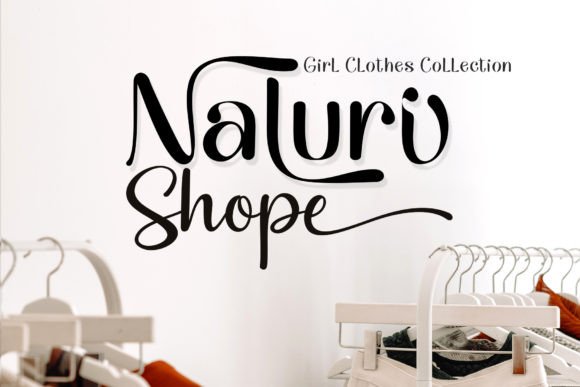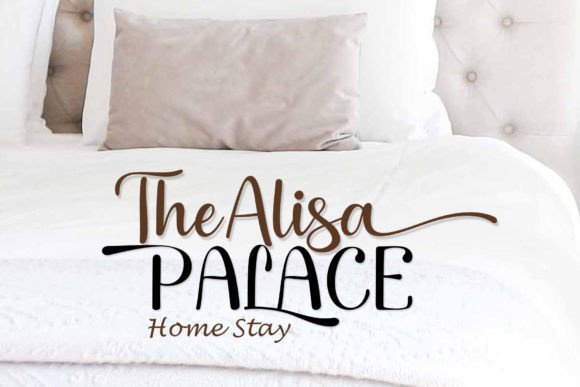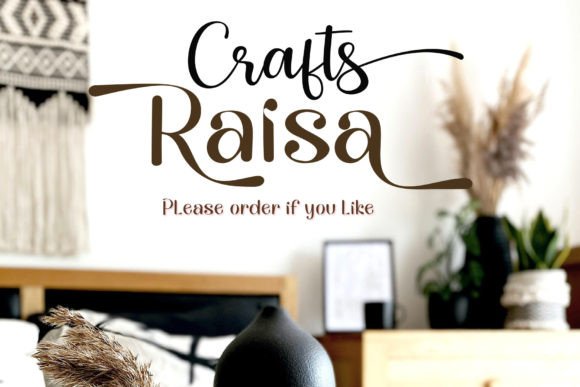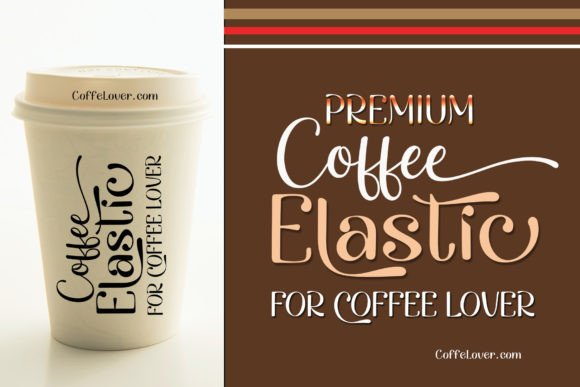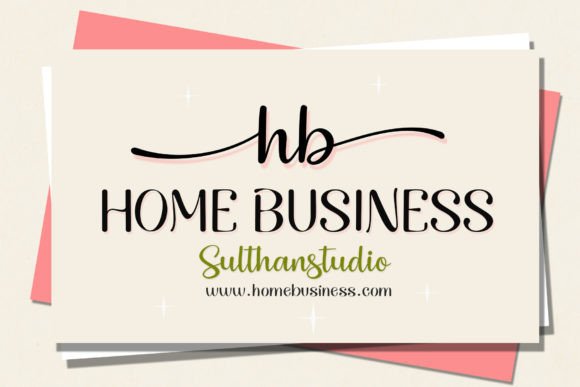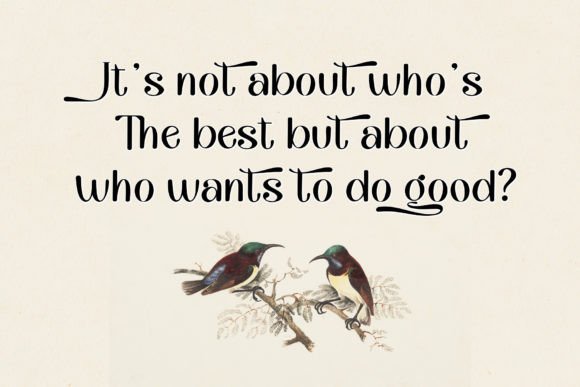
Introduction to Hister Bunga Font
Have you ever been stuck on a creative project, desperately searching for that perfect font to elevate your design? I know I have. There’s something about the right font that can make all the difference between a good design and a great one. For me, that font is often the handwritten script type, with its unique, personal touch.
That’s why I’m excited to share with you the Hister Bunga Font, a modern and stylish handwritten script font that’s sure to add a touch of elegance to any design. Whether you’re working on a wedding invitation, a thank you card, or a logo, this font is a must-have for any designer looking to add a high-quality, handwritten touch to their work.
Key Features of Hister Bunga Font
- High-quality design for creative projects, perfect for adding a unique touch.
- Includes a variety of characters, including uppercase and lowercase letters, numbers, and punctuation marks.
- Unique characteristics include a playful, handwritten style and a range of expressive flourishes.
Honest Review: Hister Bunga Font
As a designer, I’m always on the lookout for unique and high-quality design resources to elevate my creative projects. The Hister Bunga Font is one such find that caught my attention with its elegant and quirky design.
What works well about this font is its transparent background, making it easy to customize and blend with any design element. The font’s high-quality design and crisp lines also make it perfect for digital and print projects.
- ✨ High-quality design with crisp lines and elegant flair
- ✨ Transparent background for easy customization
- ✨ Perfect for creative projects, including digital and print materials
However, there are some limitations to consider. The font may not be suitable for all types of projects, especially those requiring bold or sans-serif fonts.
- ⚠️ Limited versatility for certain project types
- ⚠️ May not be suitable for projects requiring bold or sans-serif fonts
Overall, the Hister Bunga Font is a great addition to any designer’s toolkit. While it may have some limitations, its high-quality design and transparent background make it a valuable resource for creative projects.
Tips for Getting the Most Out of Hister Bunga Font
Use the Hister Bunga Font on a transparent background to create a visually appealing design. Experiment with different font sizes and styles to add depth and interest to your design.
Common Use Cases for Hister Bunga Font
The Hister Bunga Font is ideal for use in creative projects that require a unique and eye-catching font. It is commonly used in graphic design, digital art, and advertising.